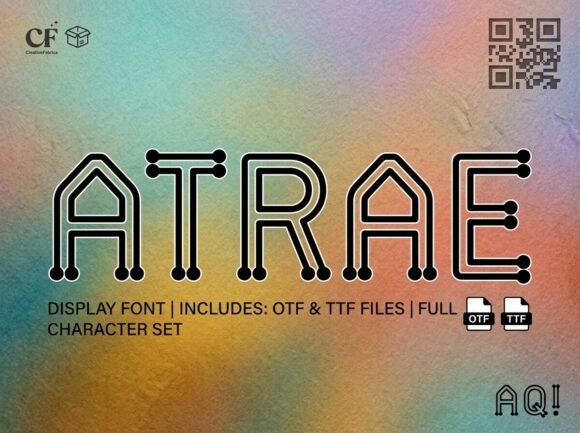
Create a Signature Look with Atrae Font: The Ultimate Choice for Modern Design
In the world of typography, a font can make or break a brand’s identity. With so many options available, it can be challenging to find the perfect one that captures the essence of your design. However, if you’re looking for a technical display typeface that exudes a “linear-and-logical” soul, look no further than Atrae Font. This stunning font is designed to help you create a signature look that’s both modern and memorable.
What is Atrae Font?
Atrae Font is a technical display typeface that features monoline, geometric letterforms with a unique rhythmic “double-path” construction. This construction, combined with circular terminal nodes, gives Atrae a distinctive look that’s reminiscent of blueprint schematics. However, its clean and balanced structural weight makes it perfect for modern minimalist branding.
Key Features of Atrae Font
- Monoline and Geometric Letterforms: Atrae’s letterforms are designed with a monoline and geometric approach, giving them a clean and modern look.
- Rhythmic “Double-Path” Construction: The font’s unique double-path construction creates a sense of rhythm and flow, making it perfect for headlines and titles.
- Circular Terminal Nodes: The circular terminal nodes add a touch of softness to the font’s geometric design, bridging the gap between technical and modern aesthetics.
- Balanced Structural Weight: Atrae’s balanced structural weight ensures that it’s legible and visually appealing, even at smaller sizes.
Perfect for Modern Design Projects
Atrae Font is the premier choice for designers and crafters looking to create a signature look for their modern design projects. Its unique features make it perfect for:
- Independent Industrial Design Identities: Atrae’s technical and modern aesthetic makes it an excellent choice for industrial design brands looking to create a strong identity.
- Boutique Tech Startup Logos: The font’s clean and modern look makes it perfect for tech startups looking to create a professional and memorable logo.
- Modern Architectural Signage: Atrae’s geometric and monoline design makes it an excellent choice for architectural signage, adding a touch of modernity to any building or space.
- High-Impact Social Media Headers: The font’s bold and clean design makes it perfect for social media headers, helping you stand out in a crowded online space.
Why Choose Atrae Font?
With so many fonts available, why choose Atrae? Here are just a few reasons why Atrae Font stands out:
- Unique Design: Atrae’s unique double-path construction and circular terminal nodes make it a one-of-a-kind font that’s sure to turn heads.
- Versatility: The font’s balanced structural weight and clean design make it perfect for a wide range of design projects, from industrial design to social media headers.
- Legibility: Atrae’s monoline and geometric design ensure that it’s highly legible, even at smaller sizes.
If you’re looking to create a signature look for your modern design project, look no further than Atrae Font. With its unique design, versatility, and legibility, Atrae is the premier choice for designers and crafters. Whether you’re working on an industrial design project, creating a logo for a tech startup, or designing signage for a modern architectural space, Atrae Font is the perfect choice. So why wait? Download Atrae Font today and start creating a signature look that’s both modern and memorable.